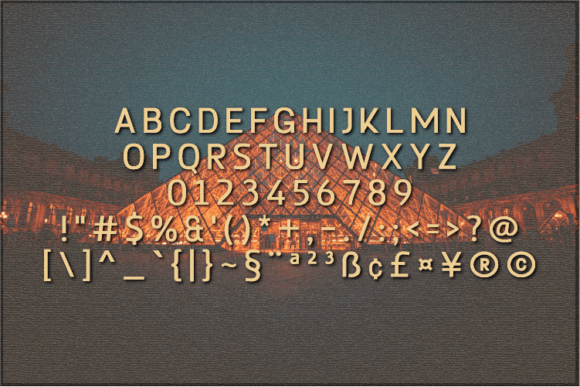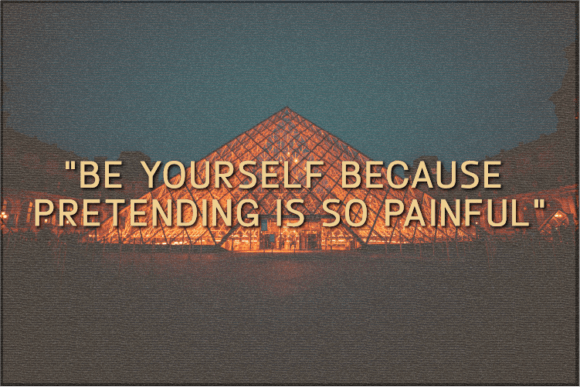
Introduction to Parisand Font
Have you ever stared at a blank design project, trying to find the perfect font to bring your creative vision to life? For designers, this moment of uncertainty can be frustrating, but it’s also an opportunity to discover something truly special – like the Parisand Font. This all-caps sans serif font has been making waves in the design community for its exceptional versatility and clean, modern aesthetic.
With its smooth lines and subtle contrast, the Parisand Font is a design resource that works beautifully in a wide range of contexts, from logos and branding to web headings. Whether you’re working on a high-profile project or a personal creative endeavor, this font is sure to elevate your design and leave a lasting impression.
Key Features of Parisand Font
- High-quality design resource with a unique, elegant style suitable for creative projects.
- Transparent background allows for seamless integration with any design or image.
- Perfect for use in graphic design, digital art, and print materials, such as business cards, logos, and brochures.
Honest Review: Parisand Font
As a designer, I’m always on the lookout for high-quality design resources that can elevate my creative projects. Recently, I had the chance to try out the Parisand Font, and I’m excited to share my honest review with you.
- High-quality design: The Parisand Font boasts a crisp, clean aesthetic that’s perfect for modern designs.
- Transparent background: The transparent background feature is a game-changer for creative projects that require a touch of elegance.
- Limited font styles: While the font itself is beautiful, the limited number of styles may not be ideal for designers who like to mix and match.
- Not suitable for bold text: The font’s delicate design may not be the best choice for bold or attention-grabbing text.
Overall, I’m impressed with the Parisand Font. Its high-quality design and free download make it an excellent resource for designers. While it may have some limitations, it’s still a valuable addition to any design library.
Tips for Getting the Most Out of Parisand Font
Use the Parisand Font in a creative project, such as a logo design or a brochure. Experiment with different font sizes and styles to create a unique look. You can also combine the Parisand Font with other design resources, such as images and graphics, to create a high-quality design.
Common Use Cases for Parisand Font
The Parisand Font is a versatile design resource that can be used in a variety of projects, including logos, brochures, business cards, and websites. It is a high-quality font that is suitable for both personal and commercial use.